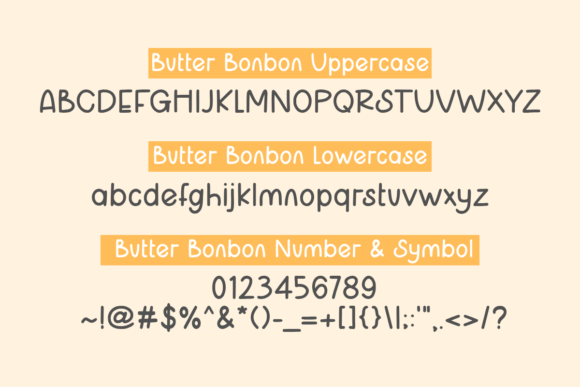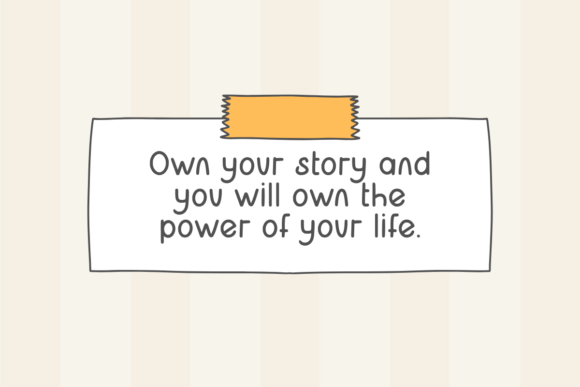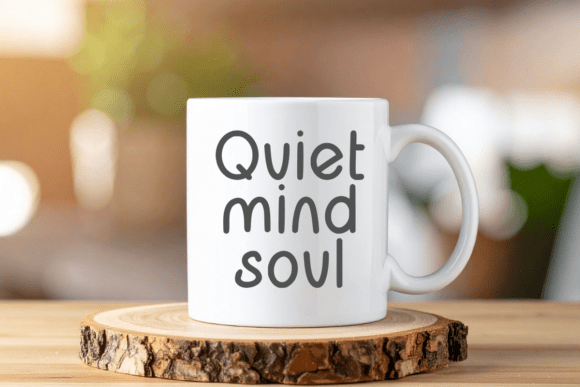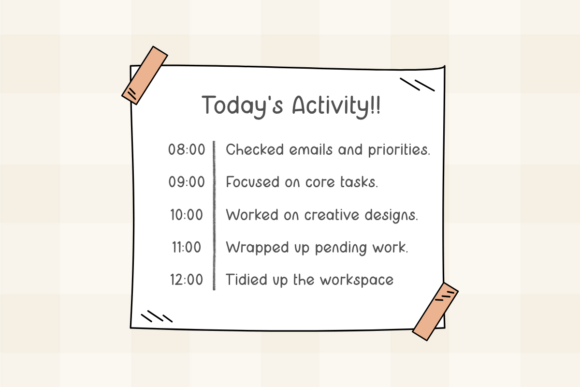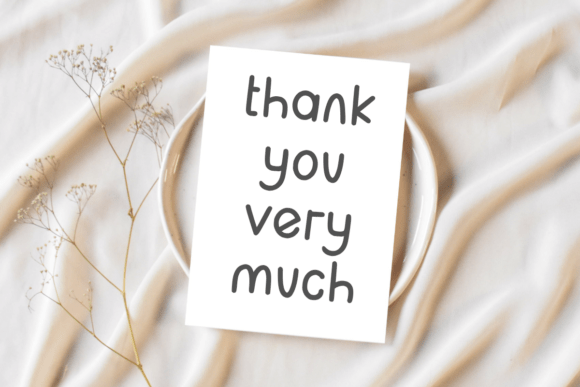
Introducing Butter Bonbon Font: Elevate Your Designs with Elegant Minimalism
In the world of digital design, fonts play a crucial role in conveying the tone and aesthetic of a project. For crafters, designers, and artists, finding the perfect font can be a game-changer. If you’re looking for a font that embodies elegance, simplicity, and a touch of natural charm, look no further than the Butter Bonbon Font. This beautifully crafted, thin sans serif font is designed to bring a sophisticated yet understated touch to a wide range of creative projects.
The Charm of Butter Bonbon Font
Butter Bonbon Font is an elegantly minimalist, thin sans serif font that mirrors the charm of natural handwriting. Its delicate strokes and subtle curves evoke a sense of simplicity and refinement, making it perfect for designs that require a touch of sophistication. Whether you’re working on planners, journals, interior KDP projects, or various craft designs, Butter Bonbon Font is sure to impress.
One of the standout features of Butter Bonbon Font is its versatility. This font excels in bringing a simplistic allure to a wide range of projects, including:
- Planners and Journals: Add a touch of elegance to your planners and journals with Butter Bonbon Font. Its thin strokes and minimalist design make it perfect for creating clean and sophisticated layouts.
- Interior KDP and Cricut Creations: Bring a touch of refinement to your interior KDP projects and Cricut creations with this beautiful font. Its delicate curves and subtle charm make it ideal for creating stunning designs.
- Stickers and Labels: Add a touch of whimsy to your stickers and labels with Butter Bonbon Font. Its playful yet elegant design makes it perfect for creating eye-catching and effective designs.
- Inspiring Quotes: Use Butter Bonbon Font to create inspiring quotes that are both visually stunning and thought-provoking. Its elegant design makes it perfect for creating motivational and uplifting content.
- Tumblers, Mugs, and Tote Bags: Transform ordinary crafts into extraordinary artistic expressions with Butter Bonbon Font. Its understated touch makes it perfect for creating beautiful and functional designs for everyday use.
Why Choose Butter Bonbon Font?
So why choose Butter Bonbon Font for your next project? Here are just a few reasons:
- Elegant Minimalism: Butter Bonbon Font embodies the perfect blend of elegance and minimalism, making it perfect for designs that require a touch of sophistication.
- Versatility: This font is incredibly versatile and can be used for a wide range of projects, from planners and journals to stickers and labels.
- Easy to Read: Butter Bonbon Font is designed to be easy to read, making it perfect for creating content that needs to be clear and concise.
- Unique Charm: This font has a unique charm that sets it apart from other fonts. Its delicate strokes and subtle curves make it perfect for creating designs that are both visually stunning and effective.
Tips for Using Butter Bonbon Font
Here are a few tips for using Butter Bonbon Font in your next project:
- Pair with Other Fonts: Experiment with pairing Butter Bonbon Font with other fonts to create stunning contrast and visual interest.
- Use for Headings and Titles: Use Butter Bonbon Font for headings and titles to add a touch of elegance and sophistication to your designs.